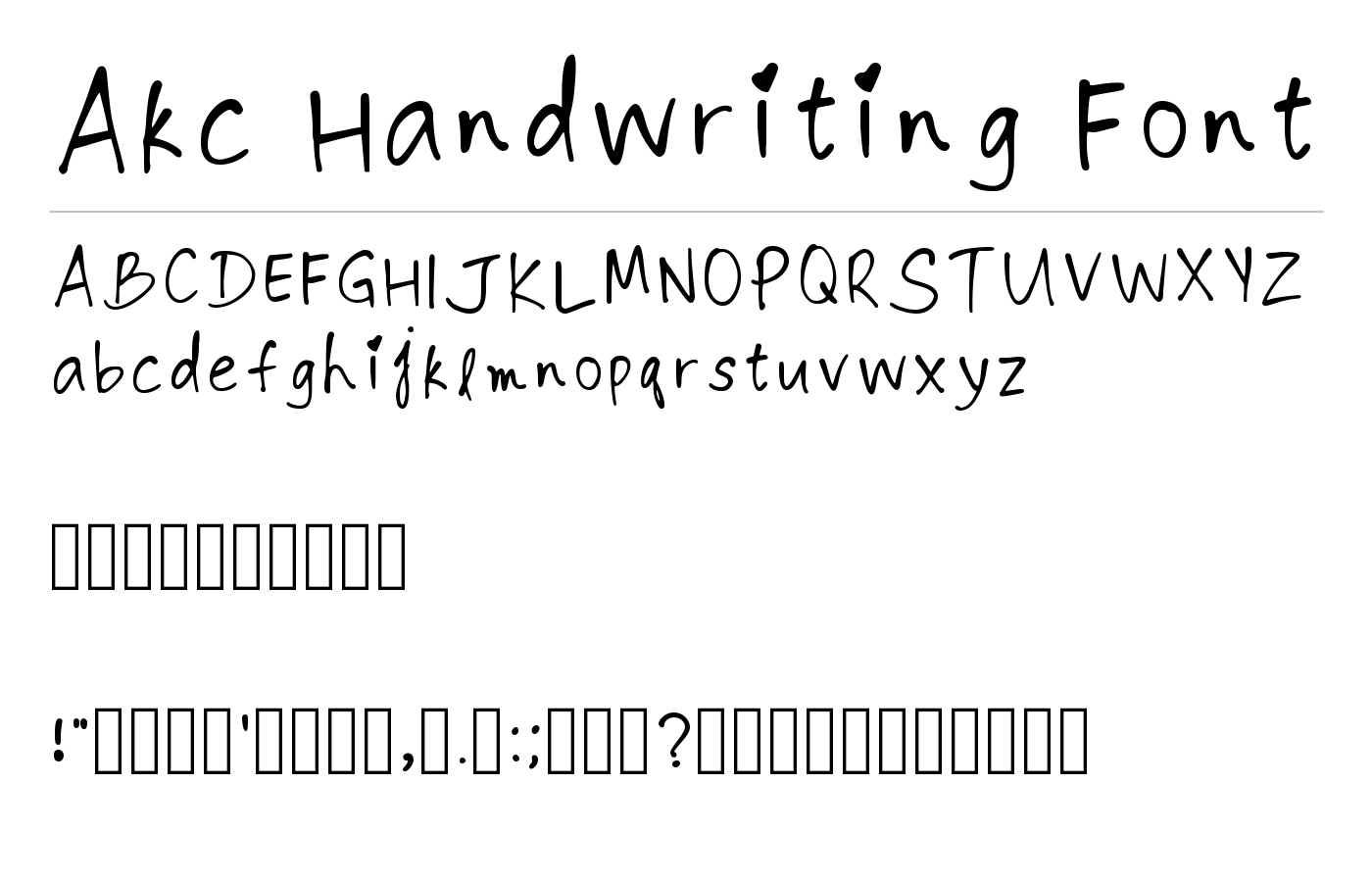
Akc Handwriting Font is a casual, playful handwritten typeface with a light weight and a natural, uneven stroke that mimics real penmanship. Its slightly tall x-height and simple, rounded letterforms create an approachable and friendly vibe, perfect for personal projects, informal branding, and creative designs where warmth and personality are key. This font works well for invitations, social media graphics, and any context where a human touch is desired.
Akc Handwriting Font